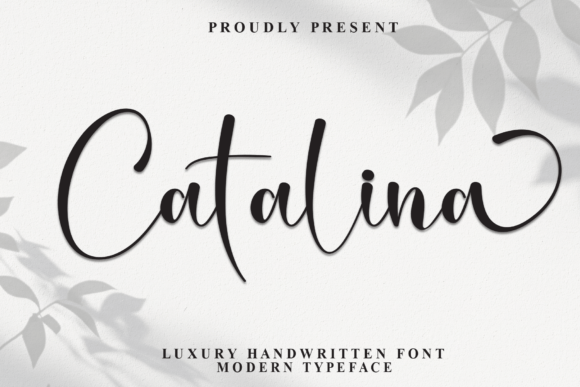
The Magic of Catalina Font: Elevating Designs with Elegance and Playfulness
Have you ever been in the middle of a design project, and suddenly, you’re stuck on finding the perfect font? I recall working on a wedding invitation project, determined to capture the couple’s playful yet sophisticated vibe. After hours of scrolling through font libraries, I stumbled upon Catalina Font. It was love at first sight! With its flowing curves and natural rhythm, Catalina added a personal, charming touch to the invitation, making it truly unforgettable. In this article, we’ll dive into the world of Catalina Font, exploring its features, uses, and alternatives.
What I Love About Catalina Font ✨
- ✅ Elegant and playful script font perfect for invitations, branding, and social media
- ✅ Flowing curves and natural rhythm add a personal touch to any project
- ✅ Versatile and suitable for various design applications, from formal to casual
- ✅ Unique character set with OpenType features, glyphs, and stylistic alternates
- ⚠️ May not be suitable for very small font sizes, as some details might get lost
- ⚠️ Limited availability of Cyrillic or non-Latin character sets
The Story Behind Catalina Font: Designer Inspiration
Catalina Font was designed with the intention of capturing the essence of elegance and playfulness. The designer aimed to create a font that would add a personal touch to various design projects, from invitations to branding. Inspired by the beauty of handwritten scripts, Catalina Font brings warmth, sophistication, and creativity to any project.
Q: What type of projects is Catalina Font best suited for?
A: Catalina Font is versatile and can be used for various projects, including invitations, branding, social media, and more.
Q: Does Catalina Font support OpenType features?
A: Yes, Catalina Font features OpenType features, glyphs, and stylistic alternates, allowing for creative and flexible typography.